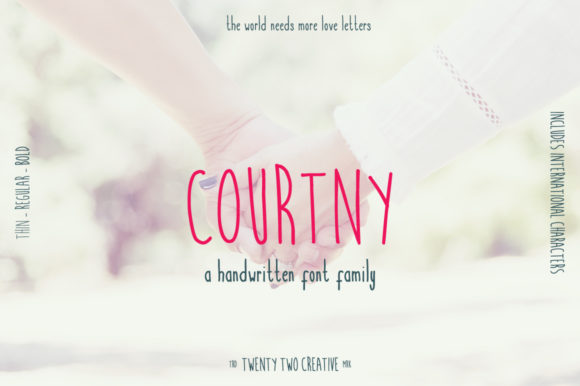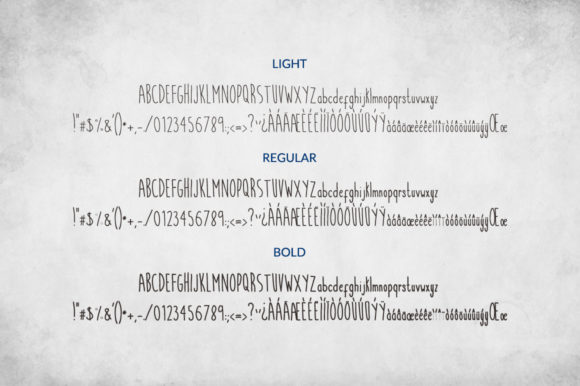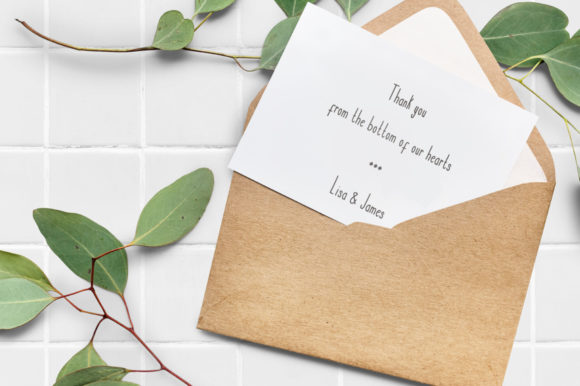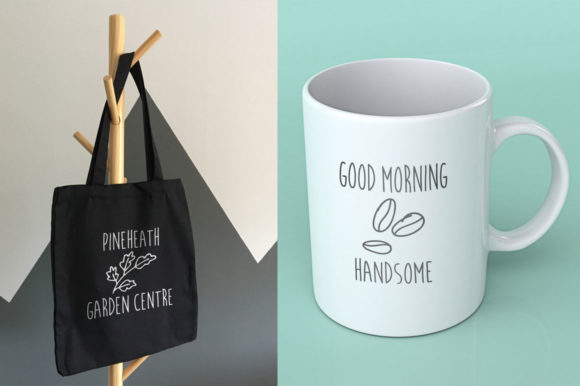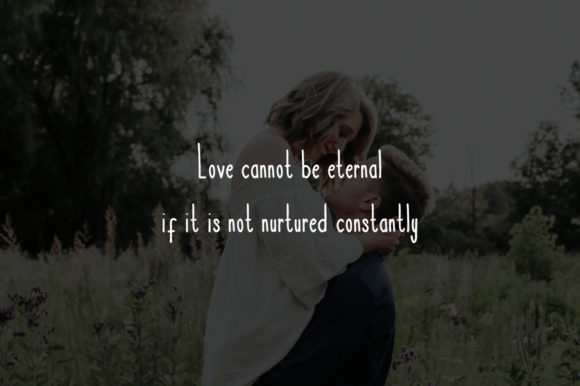
Courtny Family Font
About Courtny Family Font
The Courtny is the perfect fit for a handwritten font. It can be used for stationery, logos, branding, blogs and much more. On top of it all, it comes with three weights and international characters!